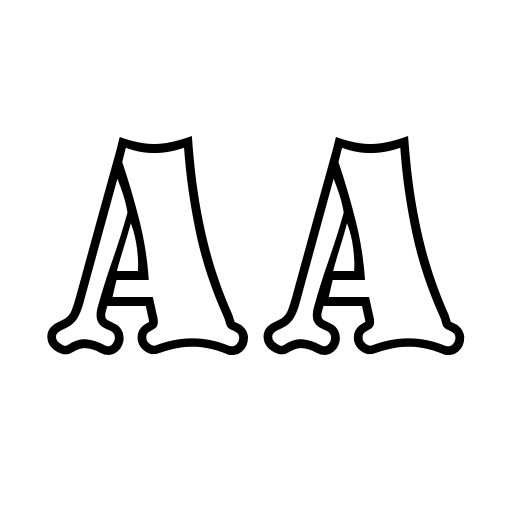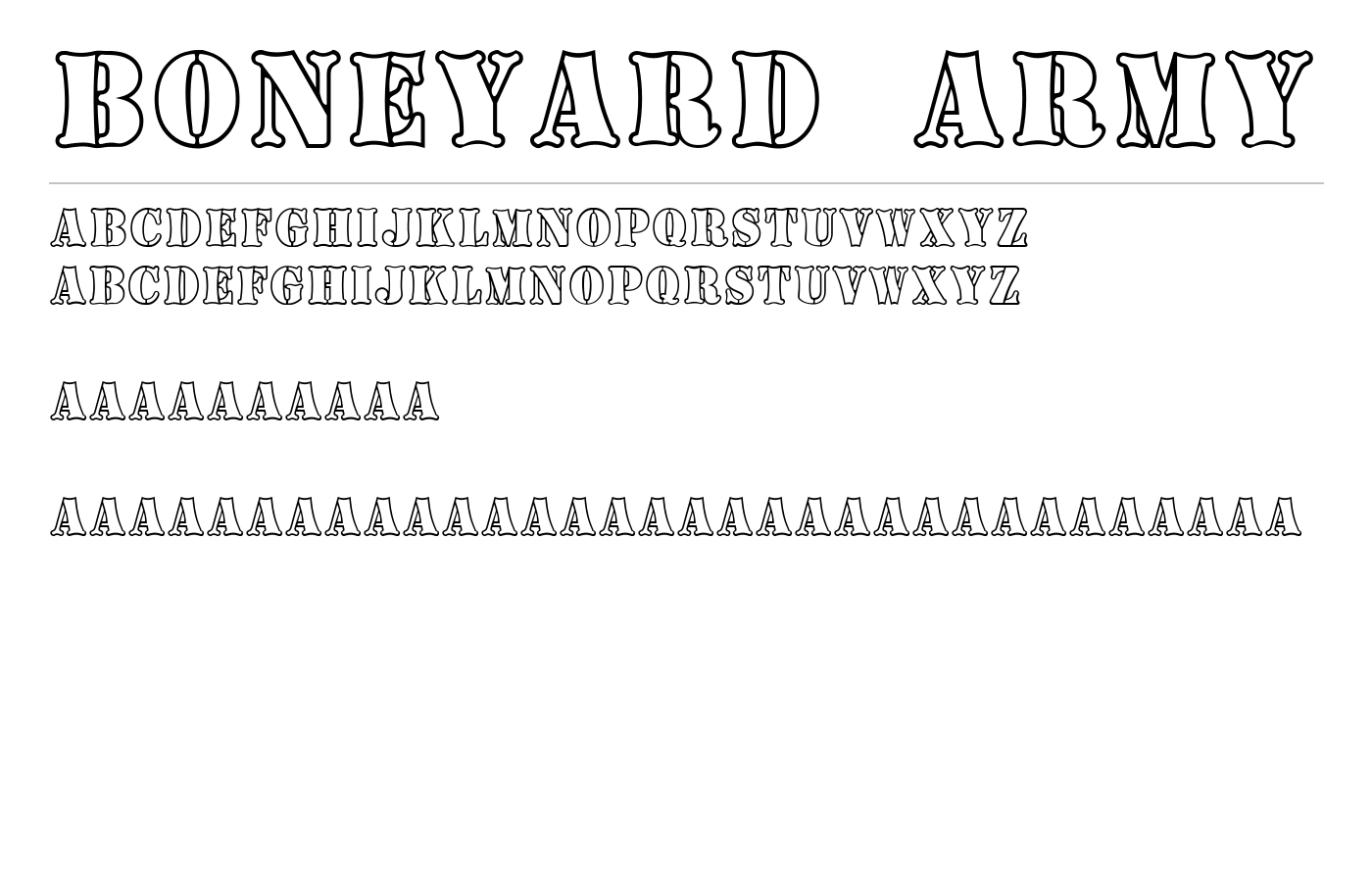
Boneyard Army is a bold, decorative serif font with a vintage, western-inspired style characterized by thick and thin strokes with playful irregular edges that give it a hand-crafted look. Its tall, condensed letterforms and unique serif shapes make it ideal for eye-catching headlines, posters, and branding that seek a rustic, rugged, or antique feel. This font works best in display settings where a strong personality and nostalgic charm are desired.
Boneyard Army Font
About Boneyard Army Font